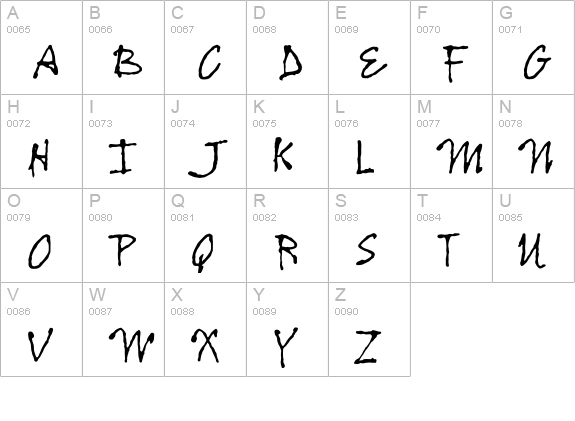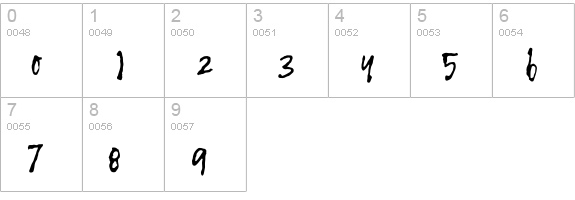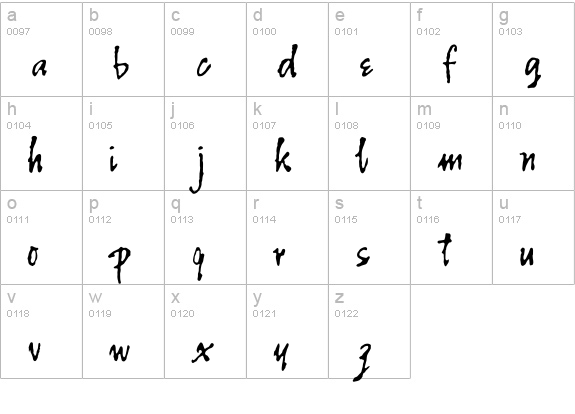
CartographersWheel Font Details
CartographersWheel font is a beautifully designed typeface that captures the essence of exploration and adventure. With its intricate details and elegant curves, this font is perfect for adding a touch of whimsy and creativity to your projects. Whether you're working on a map, poster, or logo design, CartographersWheel font will bring a sense of wonder and discovery to your work. The best part? CartographersWheel font is completely free to download at FontsMarket.com. So go ahead and elevate your designs with this unique and eye-catching font without breaking the bank. Download CartographersWheel font now and let your imagination run wild!